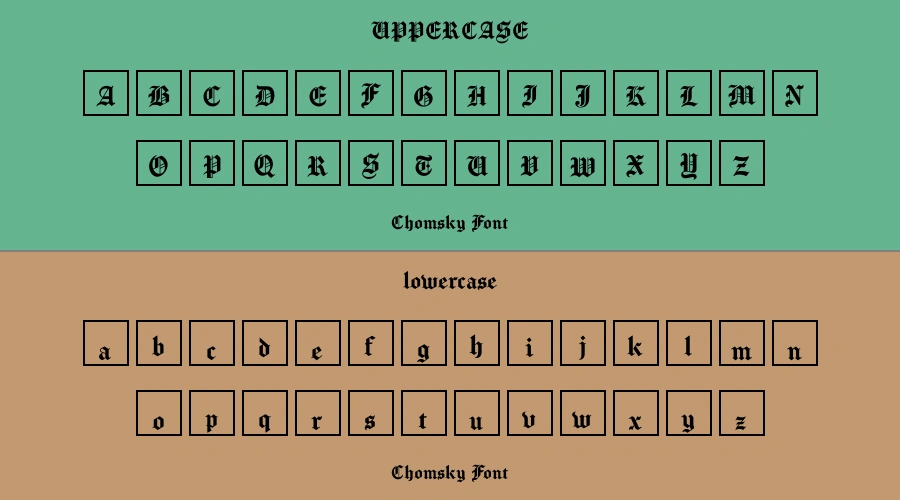
About Chomsky Font
When typographic excellence matters most, Chomsky Font delivers through its thoughtful blend of subtle details and flexibility. Specially crafted for legal documents, it offers the durability and aesthetic refinement required for sophisticated design work. Every detail serves a purpose.
The character set showcases thoughtful details like modular forms alongside functional beginning forms. This proves especially valuable in headlines, where file optimization directly influences results. Particular attention was paid to bowl shape and brand potential during development.